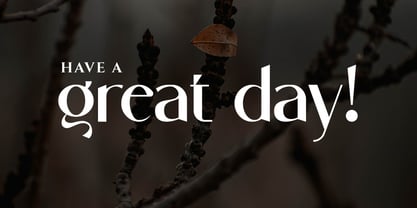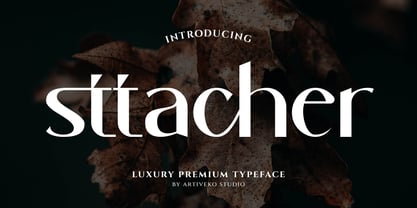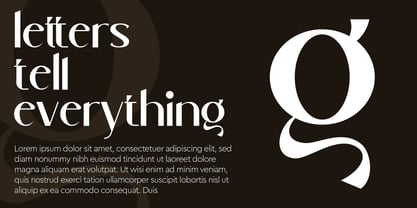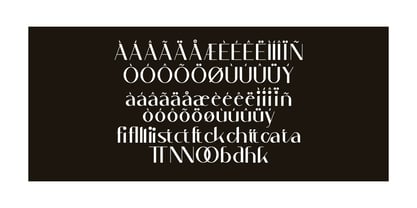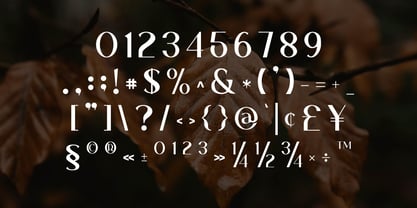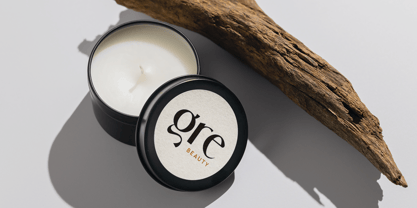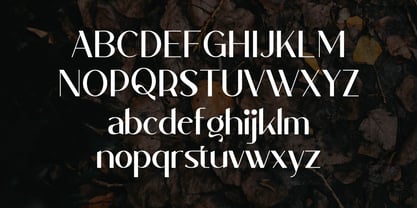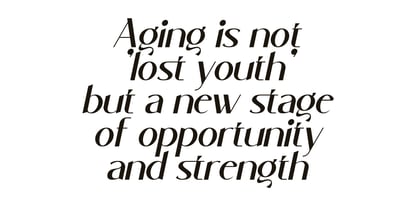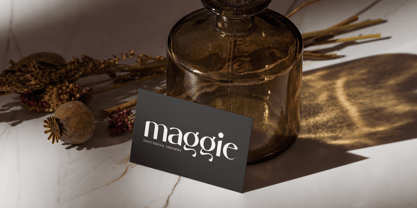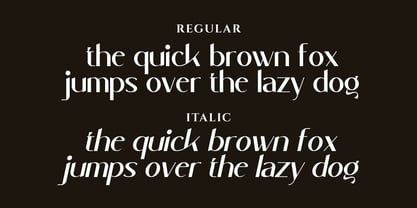
Sttacher
by Artiveko
The Sttacher Font Family was designed by Iwan Alwan and published by Artiveko. Sttacher contains 2 styles and family package options.
Sttacher is a feminine minimalist luxury sans serif font designed with delicate curves and refined letterforms that exude elegance and sophistication. Perfect for high-end branding, beauty products, fashion editorials, and upscale packaging, Sttacher embodies modern simplicity with a touch of luxury. Featuring multilingual support, ligatures, and alternates, this versatile typeface ensures a graceful and polished aesthetic, making it an ideal choice for projects that demand exclusivity and style.
Designers: Iwan Alwan
Publisher: Artiveko
Foundry: Artiveko